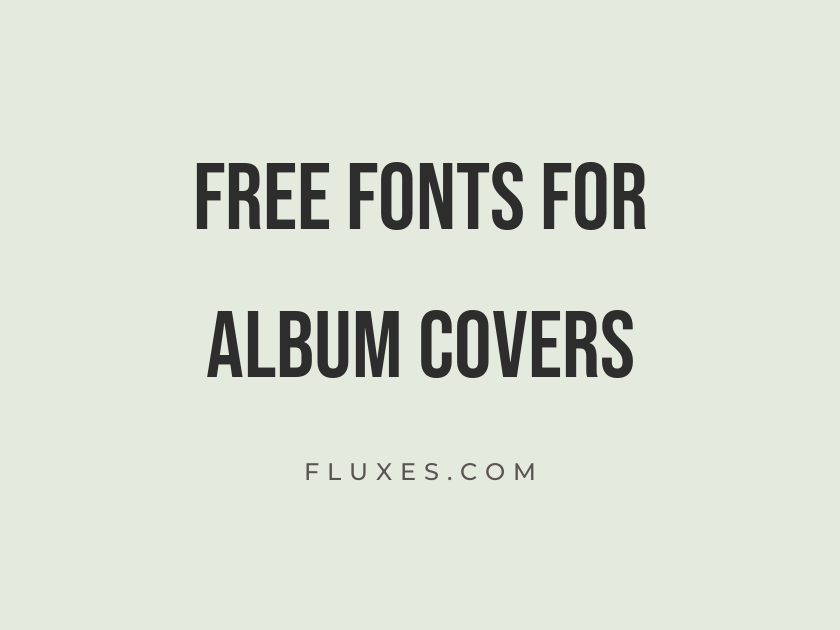
68 Best Free Fonts for Album Covers
Album art has to do a strange job: stop a thumbnail-sized scroll, hold up as a 12-inch sleeve, and still feel true to the music inside. Typography carries most of that weight, whether you are laying out a grunge seven-inch, a synthwave EP, a jazz reissue, or a bedroom-pop single meant for a streaming grid. The good news is that some of the most versatile, genre-ready display and text faces for record covers are free to download and use commercially through Google Fonts, so a home studio project can look as considered as a major label release.
What follows is a wide-ranging set of free fonts for album covers, sorted loosely by mood rather than strict genre, since the best sleeves often borrow across lines: a metal band leaning on a serif for irony, a folk singer using condensed sans for tension, a pop act going full blackletter for one dramatic release.
LOUD, BOLD, UNMISTAKABLE ROCK RECORD
Few free fonts get more mileage on record sleeves than this tall, condensed sans. It reads as confident and slightly aggressive without tipping into cliché, which is why it shows up on everything from indie rock EPs to arena-ready singles.
HEAVYWEIGHT SOUND, HEAVYWEIGHT TYPE
Anton is Bebas Neue’s heavier cousin, built with thicker strokes that hold up at poster scale. It suits hip-hop, hardcore, and anything that needs a title to feel shouted rather than spoken.
Stories from the road, told plainly
A workhorse condensed sans that keeps its cool at any weight, Oswald fits singer-songwriter and indie folk covers where the type needs to organize a lot of information (tracklists, credits, tour dates) without competing with the artwork.
League Gothic
STRIKE UP THE BAND, TAKE ONE
League Gothic
League Gothic has an old-poster stiffness that feels closer to letterpress than to a modern grotesque. It gives folk-revival and Americana projects a printed, slightly worn authority.
SIGNAL, NOISE, AND EVERYTHING BETWEEN
Compact and a little severe, Fjalla One works well as a secondary type for track listings on electronic or post-punk sleeves where the main title is doing something louder.
VOLTAGE, FEEDBACK, DISTORTION
Teko’s narrow proportions and sharp terminals give it a technical, almost architectural feel. Pair it with grid-based artwork for industrial, techno, or experimental releases.
THE WEIGHT OF A THOUSAND SPEAKERS
Blunt, heavy, and unapologetically plain, Archivo Black is a good pick when the cover art is busy and the title needs to sit on top of it without any ornament fighting for attention.
Rubik Mono One
DIGITAL DREAMS IN MONO
Rubik Mono One
This is a monospaced letterform blown up to full display weight, geometric and a little robotic. It reads well on electronic and hyperpop covers that want a screen-native, glitchy edge.
CARTOON CHAOS, MAXIMUM VOLUME
Rounded and inflated, Titan One brings a bubblegum, almost comic-book energy that suits novelty singles, kids’ music, or any pop-punk act leaning into fun over gravity.
URBAN SIGNAGE FOR A NEW ANTHEM
Bungee was built to look like street and highway signage, chunky and unmistakably urban. It’s a strong choice for hip-hop, reggaeton, or any cover that wants to feel shot on location rather than in a studio.
OUTLINED, LOUD, AND STREET-READY
The inline cut of Bungee keeps all that signage swagger but adds a hollow, stenciled quality, useful when a title needs to sit over a busy photograph without going fully opaque.
THREE-DIMENSIONAL SOUND, LITERALLY
Bungee Shade adds a long drop shadow baked right into the letterforms, giving instant retro-arcade depth. It works best big, on one word, where that dimensional effect can actually breathe.
NEON NIGHTS, ELECTRIC PULSE
Monoton is pure neon-sign lettering, all parallel lines and glowing implication. Reach for it on synthwave, disco, or vaporwave covers where the type itself should look lit up.
RETRO FUTURE, ANALOG WARMTH
Righteous has a rounded, mid-century sci-fi charm, somewhere between a diner sign and a spaceship control panel. It flatters funk, disco, and retro-futurist electronic releases equally well.
STENCILED TRANSMISSIONS FROM THE UNDERGROUND
Thin, stenciled, and a bit military, Wallpoet suits industrial and minimal techno covers that want their typography to feel found rather than designed.
Nosifer
BLOOD, DISTORTION, AND DREAD
Nosifer
Nosifer drips, literally, its letterforms built from jagged, dripping strokes that scream horror-metal without any further effort. Use it sparingly, at large sizes only, since it turns to mush the smaller it gets.
HAUNTED HOUSE, LOW BUDGET, HIGH IMPACT
A staple of horror-adjacent design, Creepster brings a dripping, campy dread that works for Halloween compilations, horrorcore, or any release leaning into B-movie theatrics.
Metal Mania
RAISED FISTS, DISTORTED GUITARS
Metal Mania
True to its name, Metal Mania channels the hand-inked band logos of underground metal flyers from the eighties and nineties. It is a genre font in the truest sense, best kept to a title rather than body text.
Leave room for the type to breathe against the artwork. Cramming a heavy display face into a busy photograph usually reads as clutter rather than energy.
Free does not have to mean generic. With this many distinct moods available through Google Fonts, an album cover can sound like the music before a single note plays.